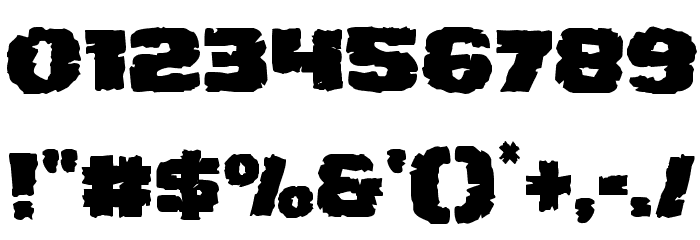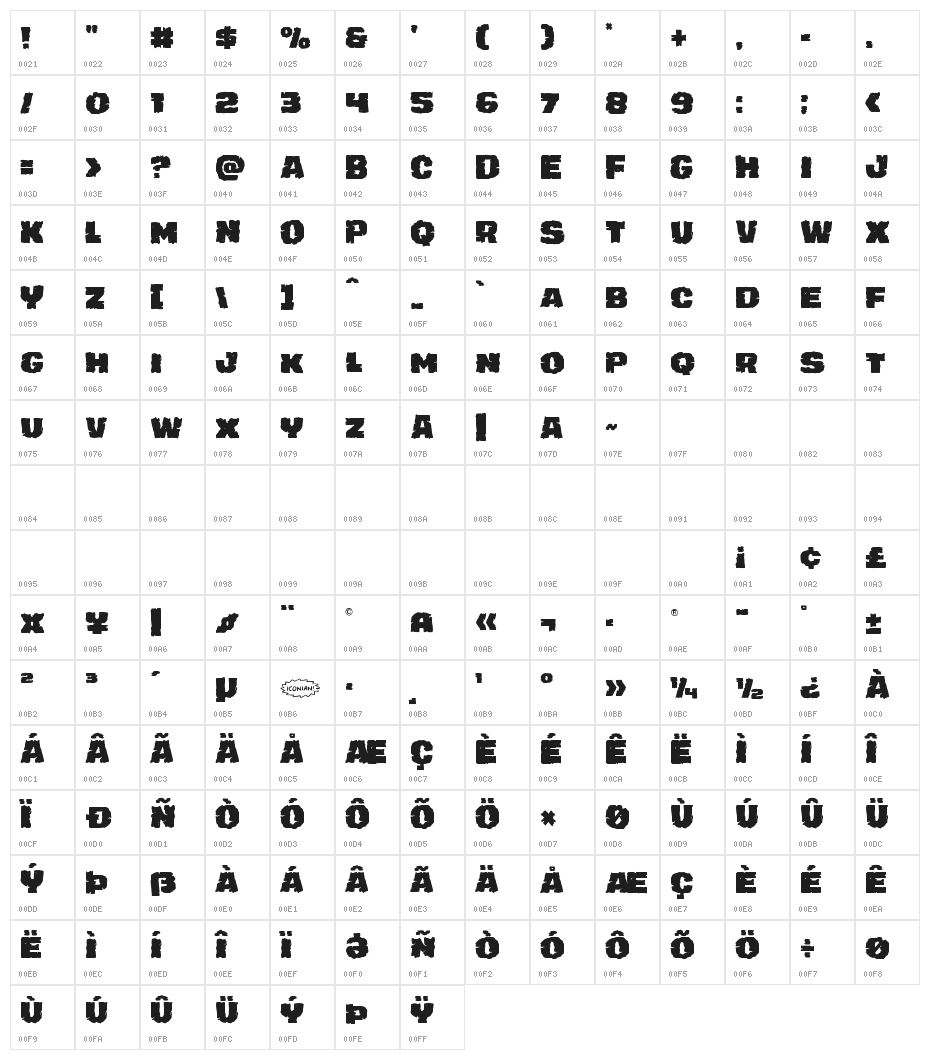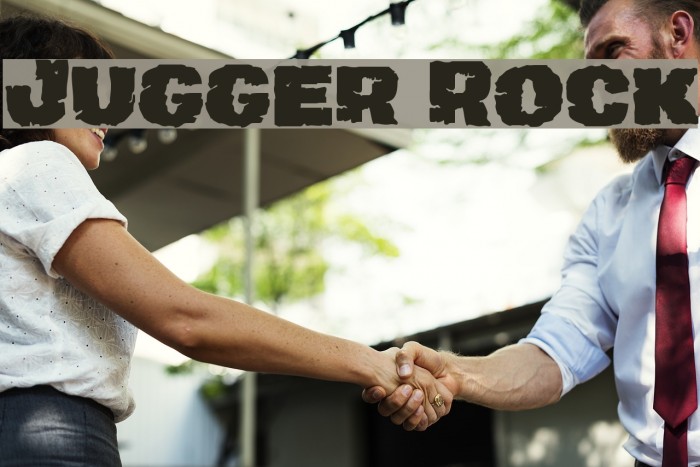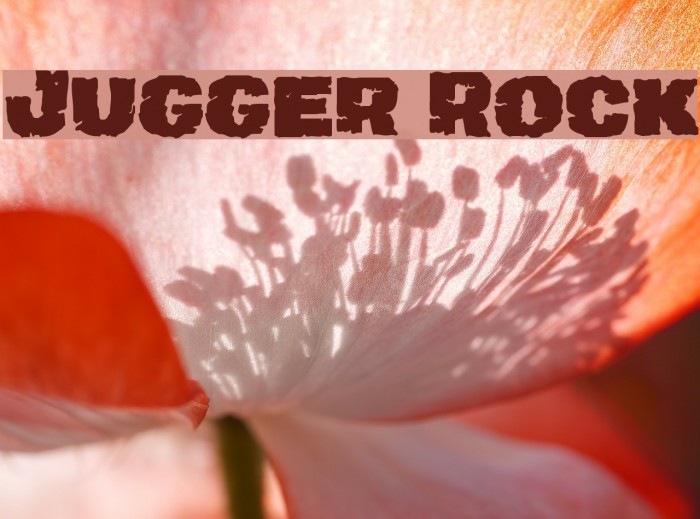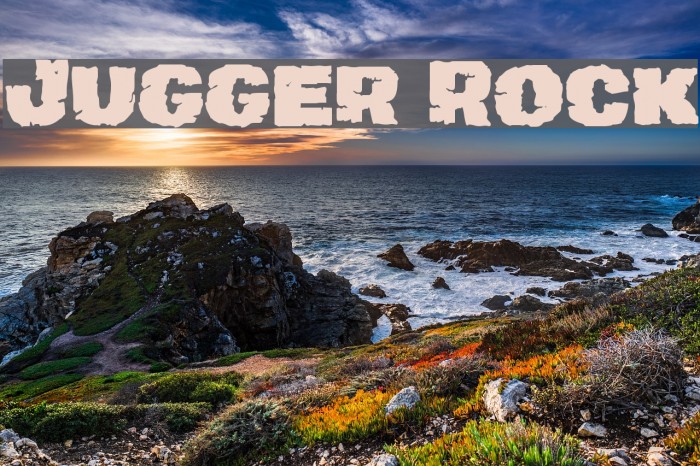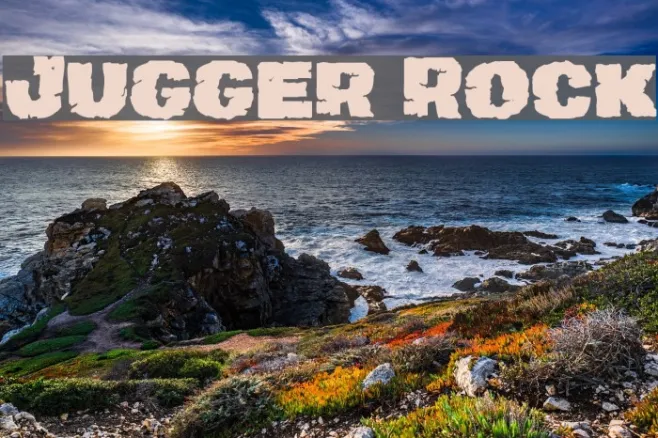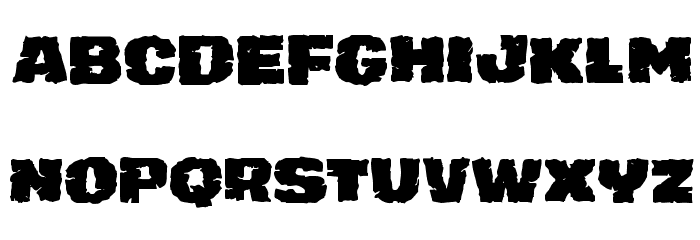
Jugger Rock Font
Jugger Rock Description
This font features a bold and rugged design with a distressed texture, giving it a gritty and impactful appearance. The characters are heavily weighted and have a rough, uneven edge that suggests a sense of strength and durability. The uppercase and lowercase letters maintain a consistent style, with each character exhibiting a unique, hand-crafted look. The numerals and special characters follow the same aesthetic, ensuring a cohesive appearance across all text. This font is ideal for projects that require a bold statement or a touch of edginess.
| Overall Style | Rugged, Edgy, Bold |
| Proposed Projects | Perfect for music album covers, posters, branding for extreme sports, or any design needing a bold, gritty aesthetic. |